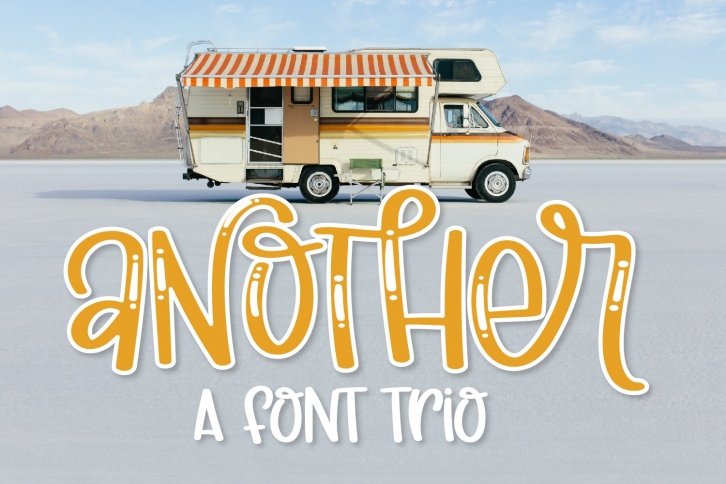
Another is a beautiful font that was designed by Justina Tracy. It's a great choice for designers and creatives who need such a font. It was released on June 15, 2020 and the file size is 4.99 MB. Another may give a more youthful, expressive and casual look to your project. It is a very beautiful, refined, elegant, and high-quality font.